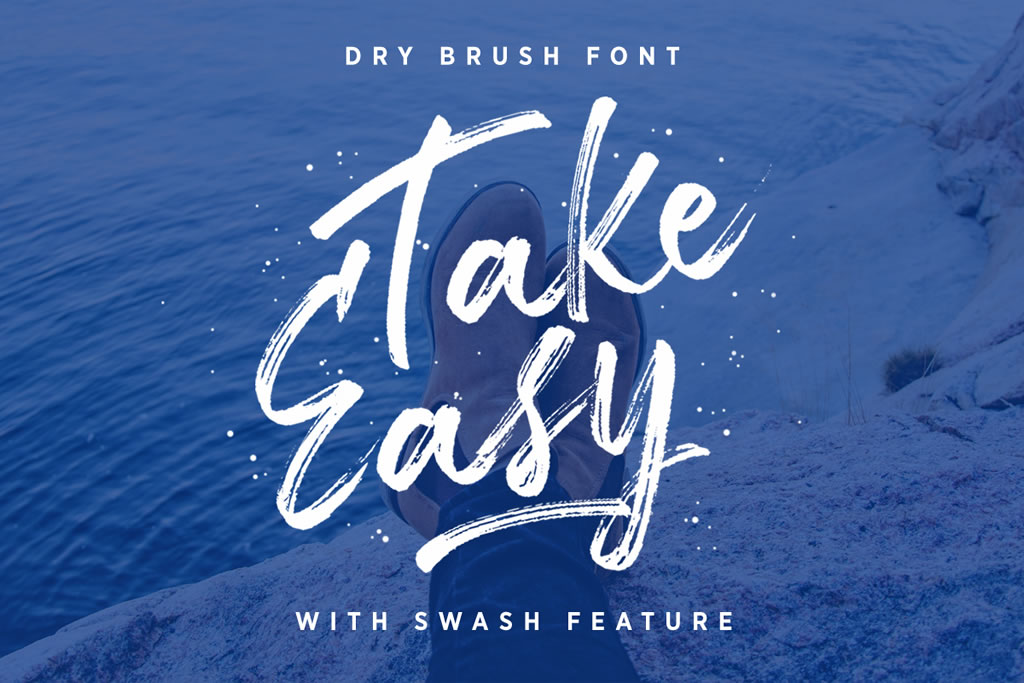
TakeEasy Brush Font
TakeEasy Brush Font is perfect for relaxed lifestyle blog headers, casual coffee shop branding, laid-back vacation resort signage, mindfulness meditation app interfaces, stress-relief wellness center materials, carefree social media graphics, easygoing craft business logos, chill music venue promotions, relaxed yoga studio branding, and peaceful retreat center communications. This calming typeface brings serene authenticity to slow living brands, mindful lifestyle products, relaxation therapy services, casual dining establishments, and tranquil spa marketing materials.
TakeEasy Brush Font is exciting because it captures the essence of relaxed living and carefree spontaneity through its naturally flowing brush-painted letterforms. The font features organic, hand-brushed characters with gentle strokes and effortless rhythm that evoke the feeling of unhurried creativity, peaceful moments, and the simple joy of taking life at a comfortable pace. Its distinctive construction demonstrates relaxed artistry with carefully preserved brush marks that create an immediate sense of calm and authentic handmade charm. The font's laid-back personality and peaceful authenticity make it perfect for brands seeking to communicate relaxation, mindful living, and easygoing lifestyle approaches in their visual communications.
TakeEasy Brush Font family includes various relaxed styles: Light Brush, Regular Brush, Bold Brush, Flowing Brush, Gentle Brush, Casual Brush, Soft Brush, Natural Brush, Condensed Brush, Extended Brush, Peaceful Brush, and Mindful variants. Each family member maintains the core relaxed DNA while offering different stroke weights for diverse laid-back design applications. The comprehensive font collection ensures consistent calming branding across wellness campaigns, lifestyle products, and peaceful communication materials.
Whether you're creating wellness brand identities, designing relaxed lifestyle marketing materials, developing peaceful website headers, or crafting mindful promotional campaigns, TakeEasy Brush Font delivers outstanding calming appeal and relaxed authenticity. The font's distinctive peaceful personality excels in wellness logos, mindful packaging design, relaxation applications, and lifestyle projects where calm serenity and easygoing charm are essential.